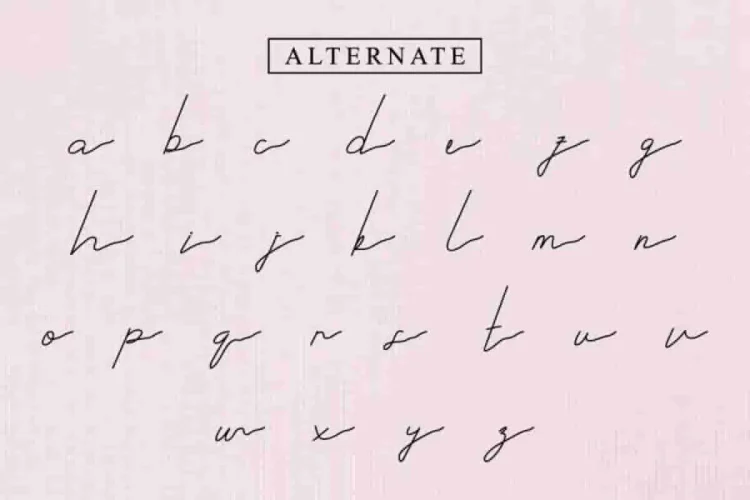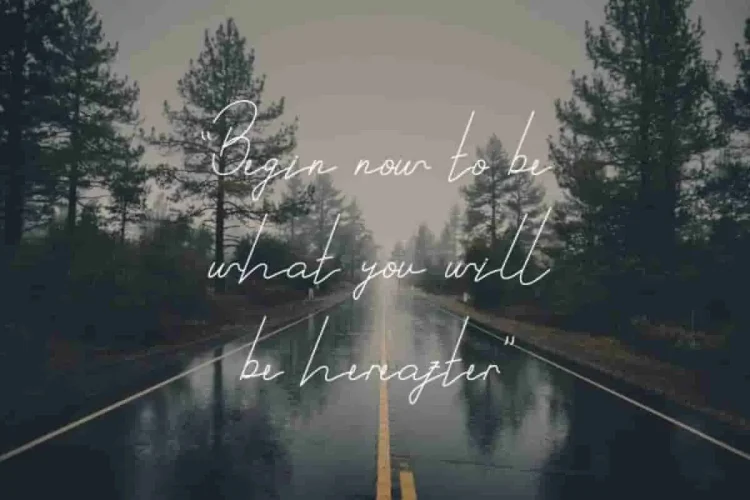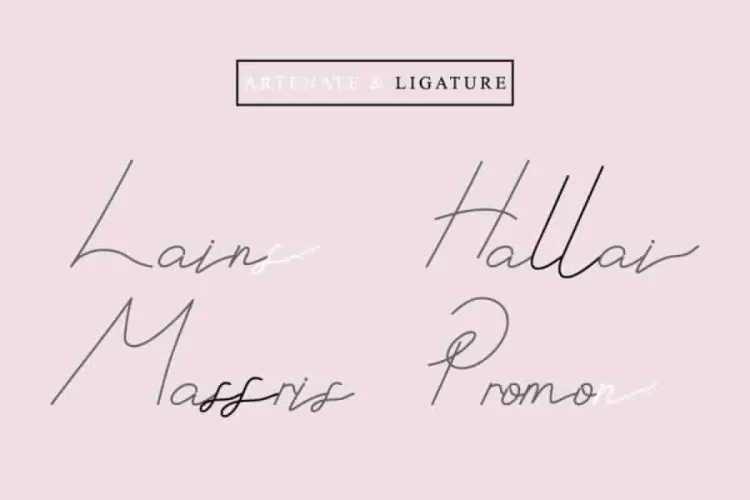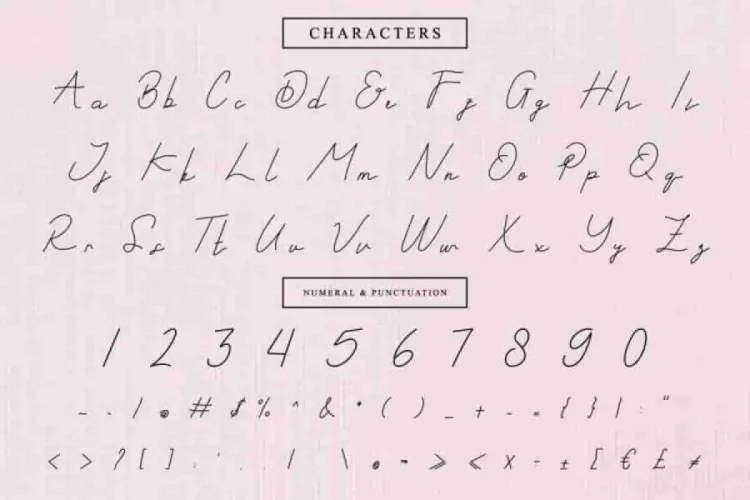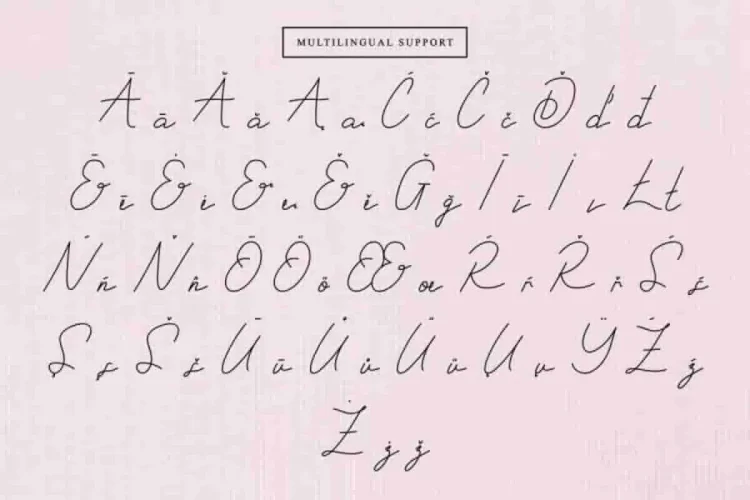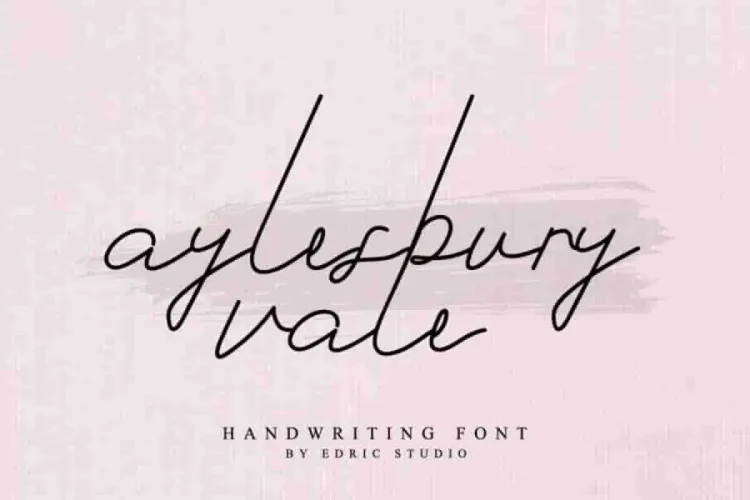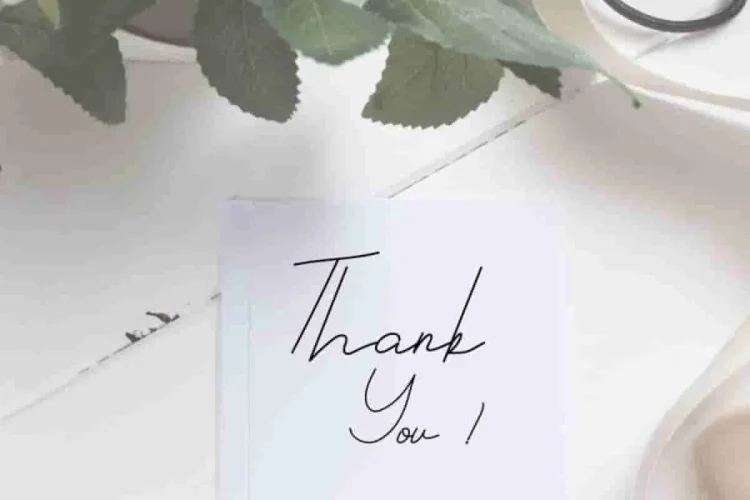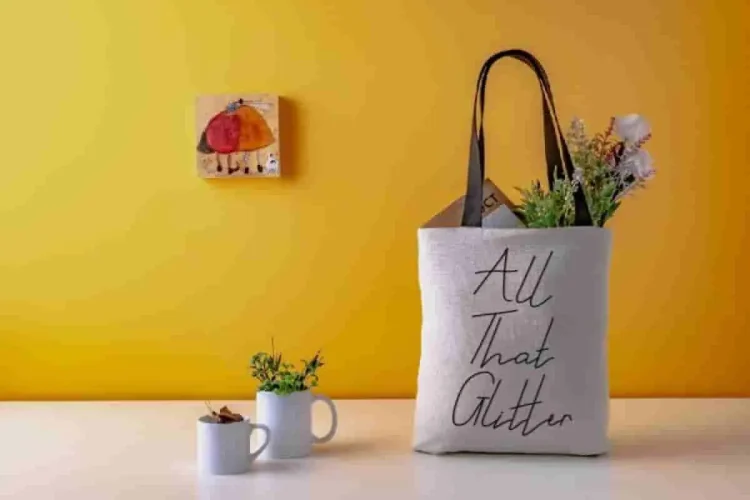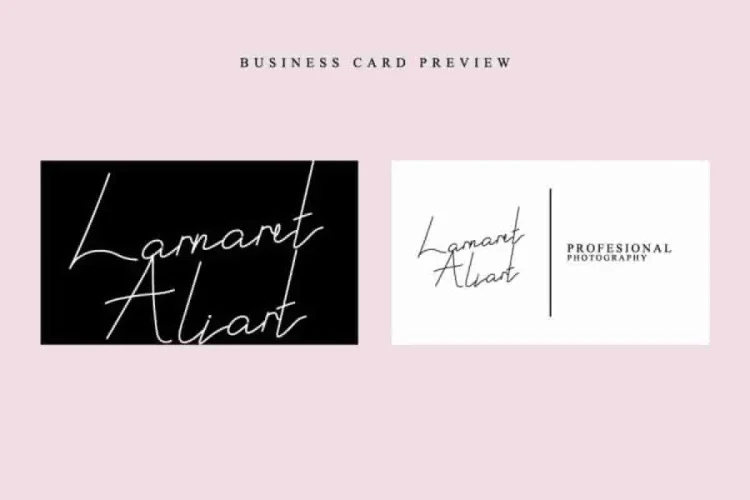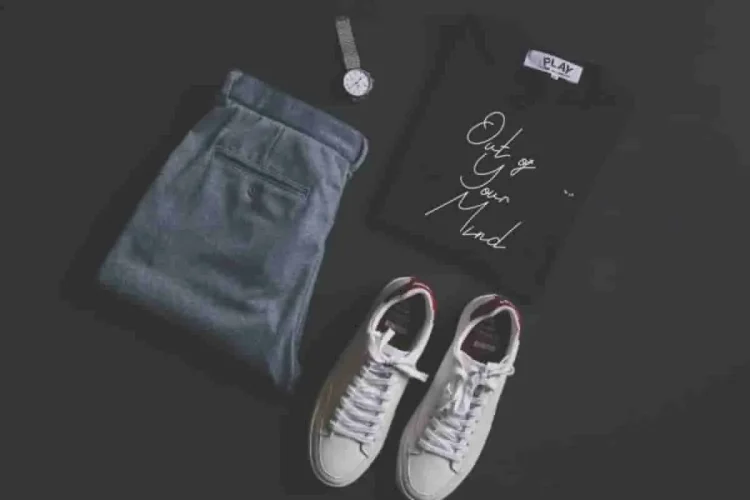
Aylesbury Vale Handwritting Font
Please meet our newest creation of ours : a signature script font: Aylesbury Vale
Aylesbury Vale is a siganture style script handwriting font, This is a modern sign line or monoline font with natural handwriting look.
It has a unique glyhps set that is the classic, elegant, strong, vintage, stylish and sophisticated. Also it has full lowercase alternatives on each gplyhs.